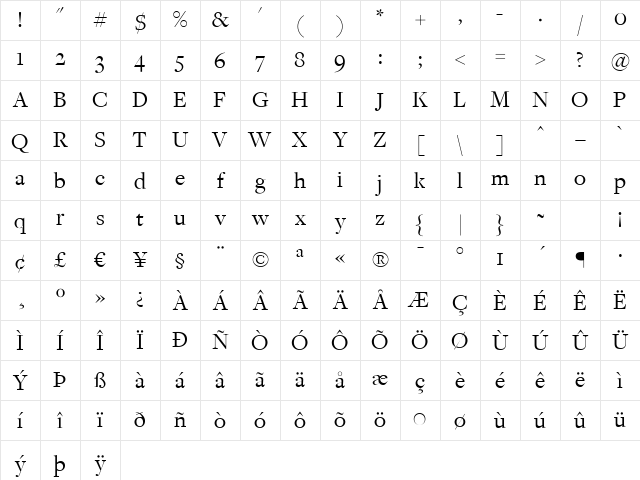
FreightDispBook Regular
Foundry: Joshua Darden & Phil's Fonts, Inc
Designer: Joshua Darden
Design Context for FreightDispBook
FreightDispBook is a composed and adaptable typeface that performs quietly and consistently across a wide range of design contexts.